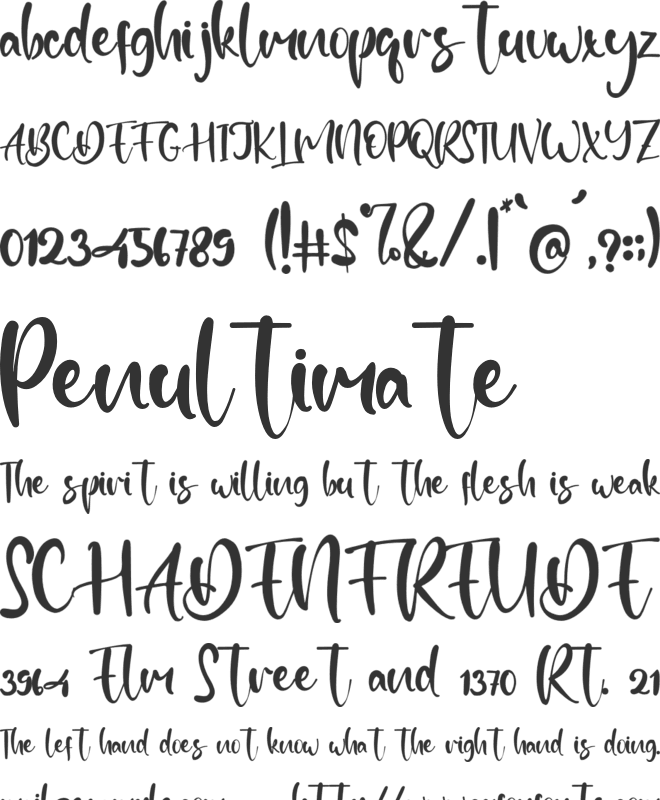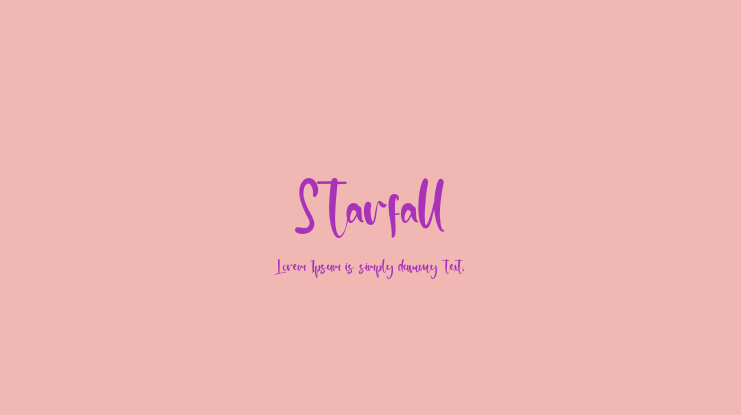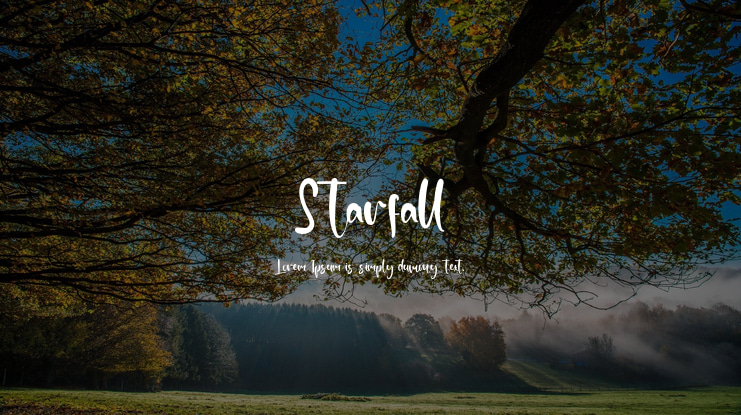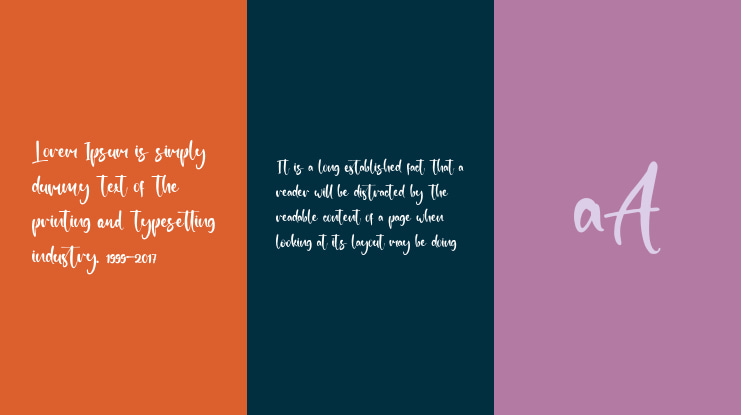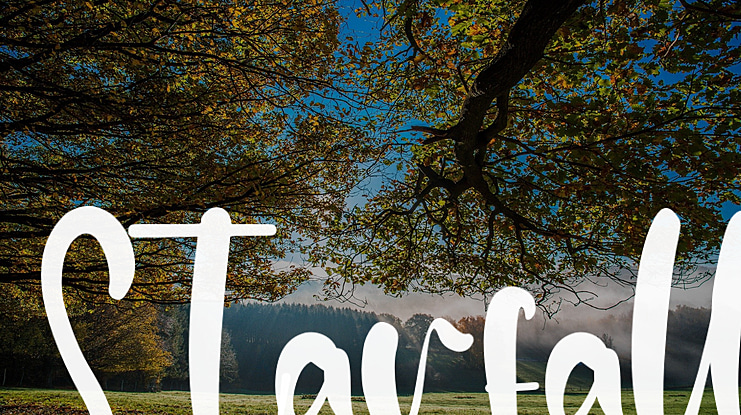
Starfall Font
Introducing our New Font, very suitable as to make adorable invitation for wedding, birthday, special day. A collection of letters and numbers suitable your projects also great for Logotype, Branding Design, Logo Design, Digital Lettering Arts, T-Shirt/Apparel, Poster, Magazine, Signs, Advertising Design, and also perfect for your other projects branding.Click our website :https://fontkong.com/product/starfall/